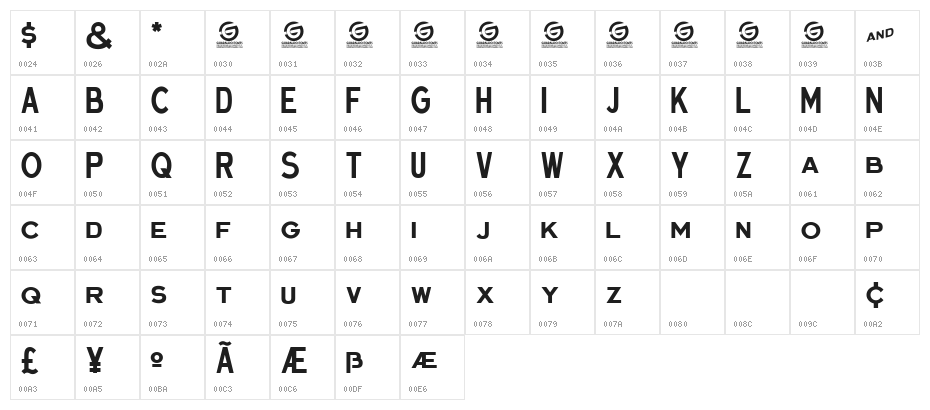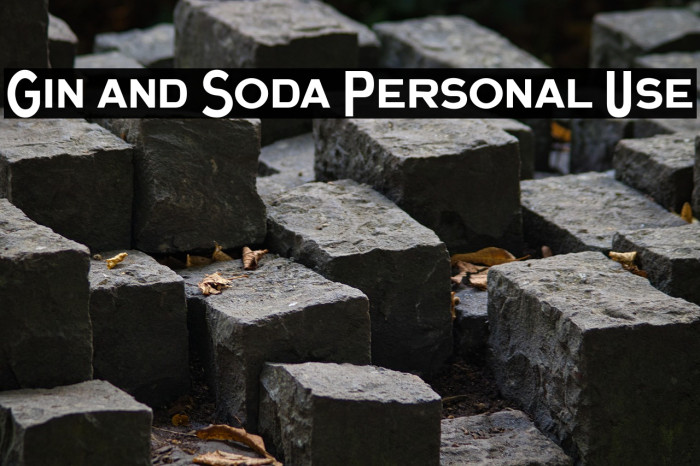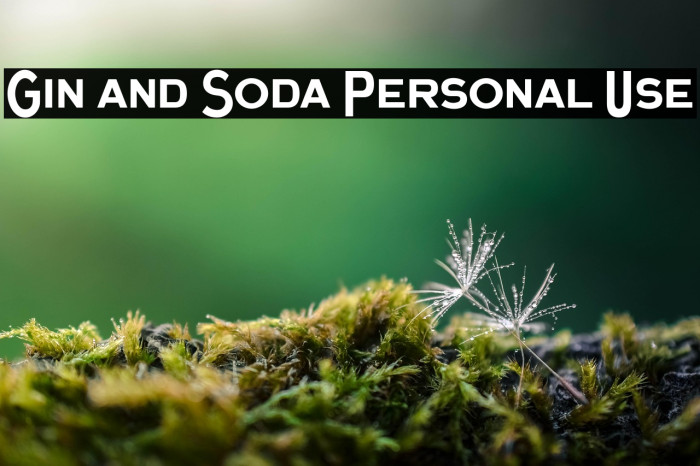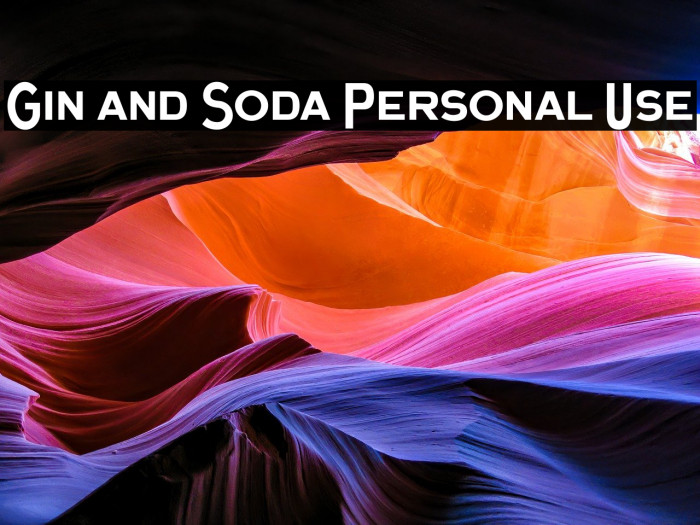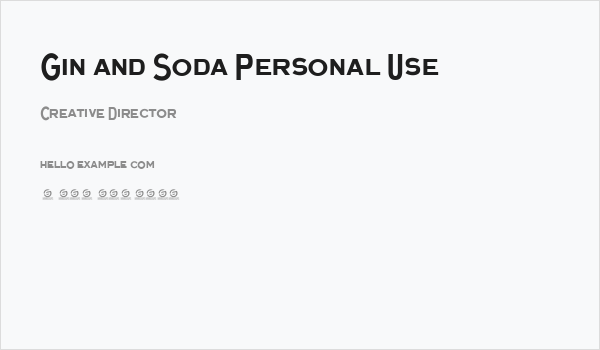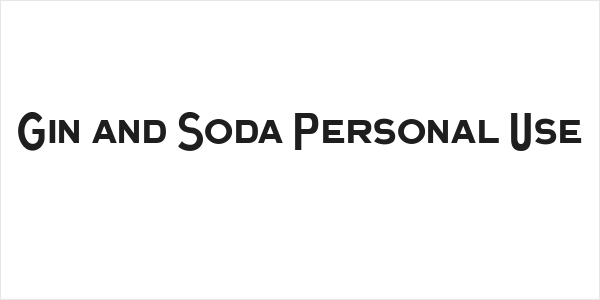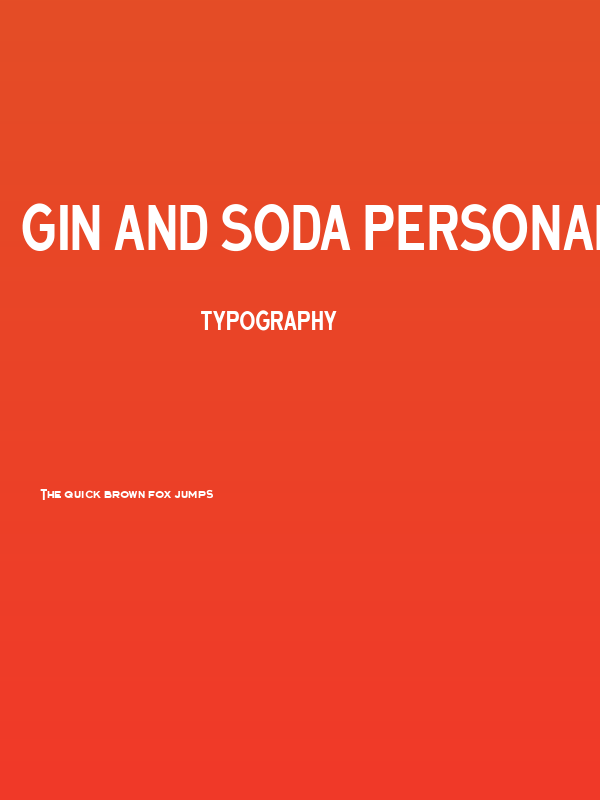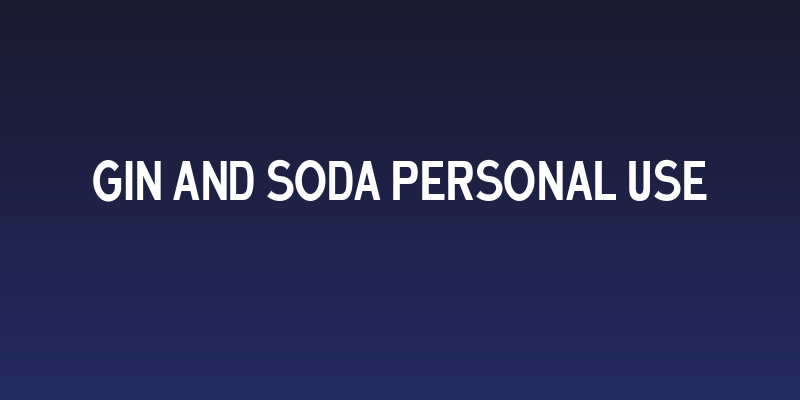
Gin and Soda Personal Use Font
This font features bold, uppercase letters with a strong and modern aesthetic. The characters are evenly spaced, providing a clean and structured appearance. The strokes are consistent in thickness, offering a uniform look across all letters. The font's simplicity and clarity make it highly readable, suitable for various design applications. The special characters, such as the dollar sign, ampersand, and asterisk, maintain the same bold and straightforward style, ensuring cohesion throughout the character set.
| Proposed Projects | Ideal for branding, headlines, posters, and any design requiring a strong visual impact. |